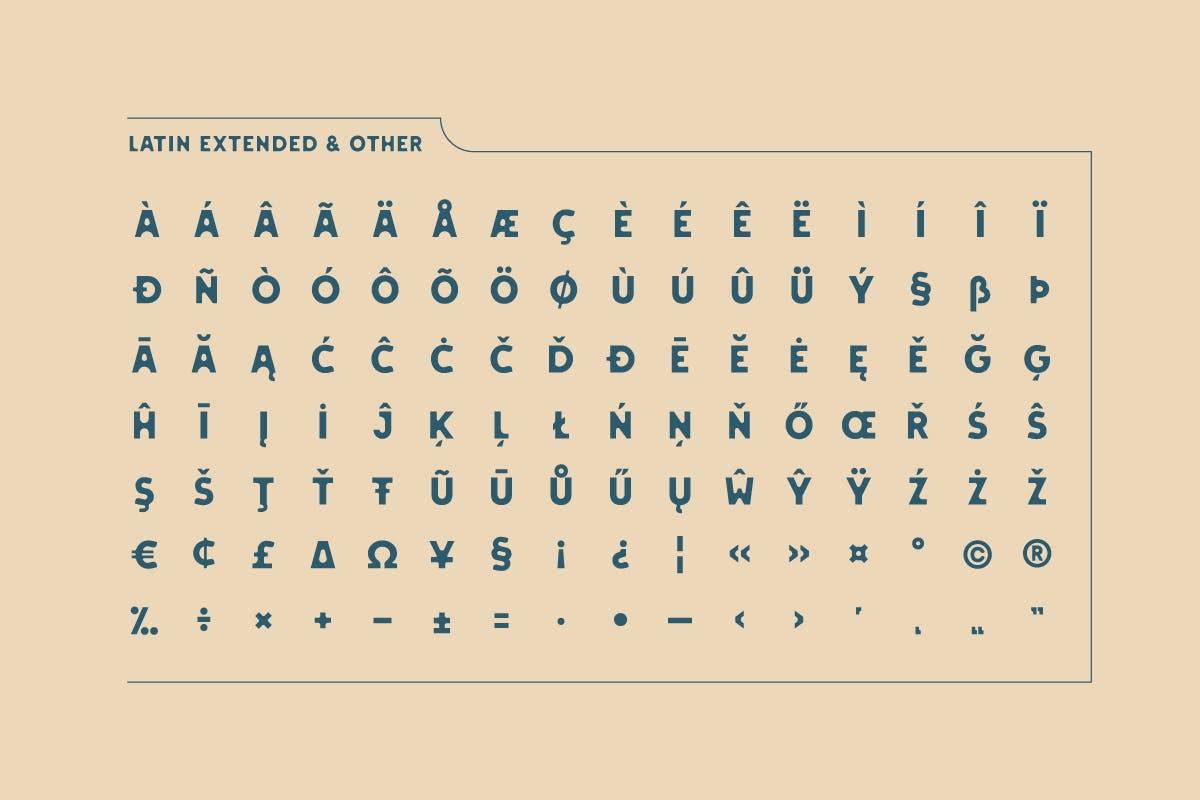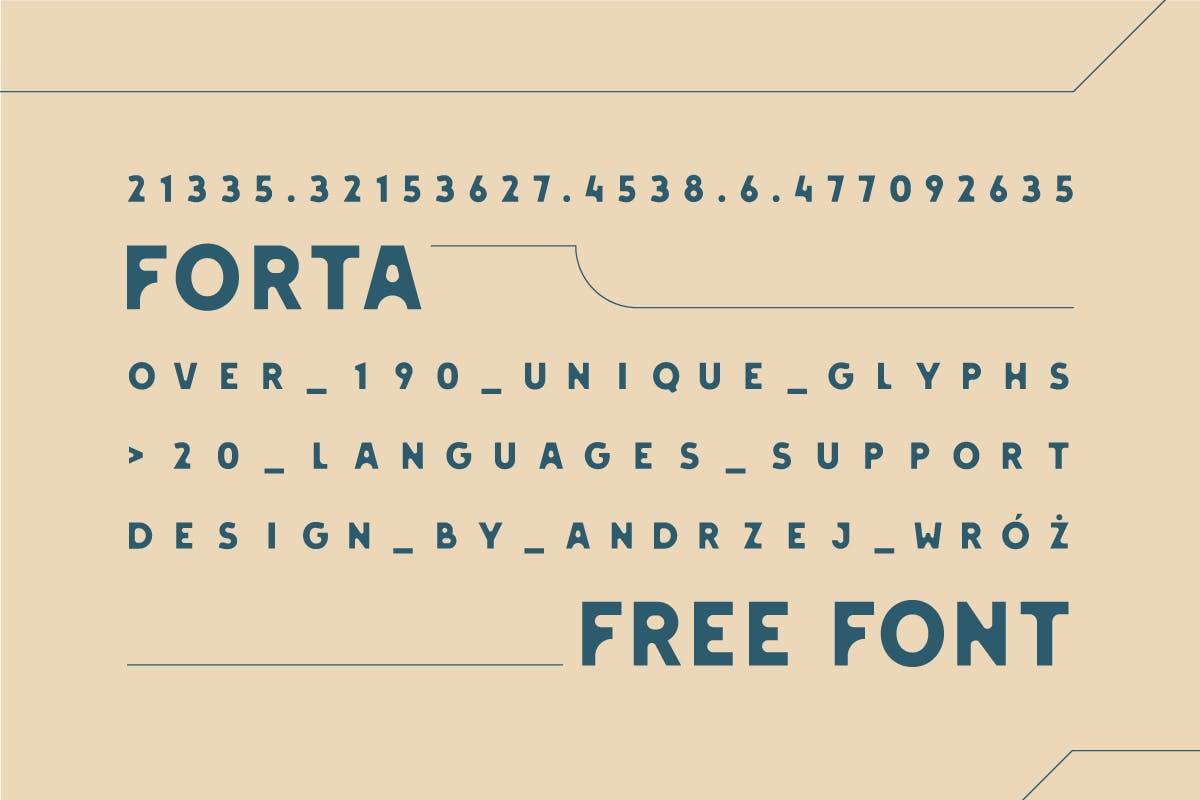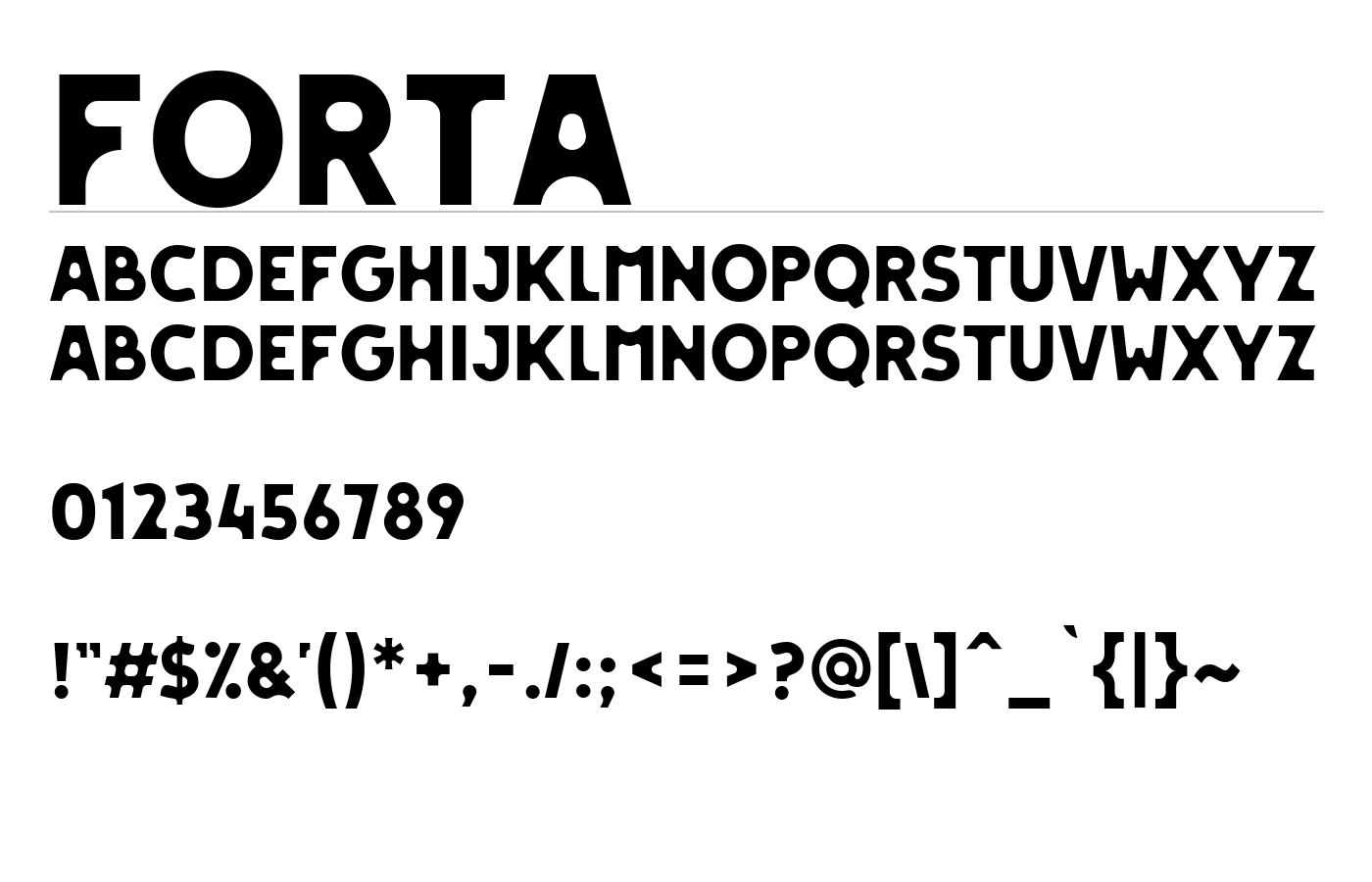
Forta is a bold, geometric sans serif display font with a strong, modern presence and playful character details like quirky cutouts and unique shapes in letters such as the Q and R. Its heavy weight and wide proportions make it ideal for striking headlines, logos, and branding where attention-grabbing style and personality are key. This font works particularly well for creative, contemporary designs that want to combine strength with a touch of fun.
Forta – Display Font
About Forta – Display Font
| Designer | Andrzej Wróż CREATIVE HANDS |